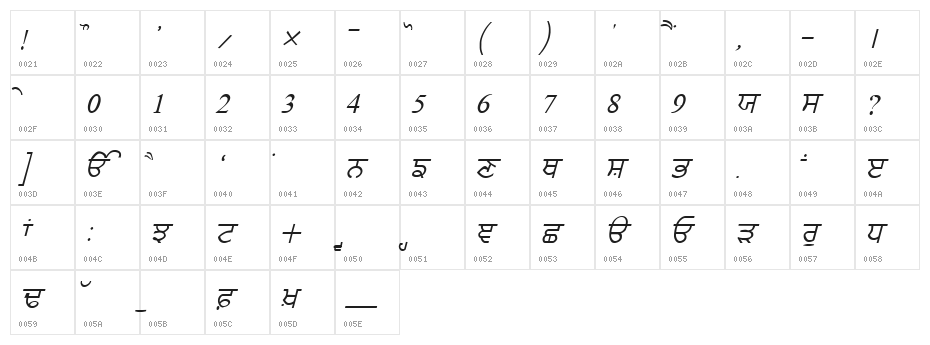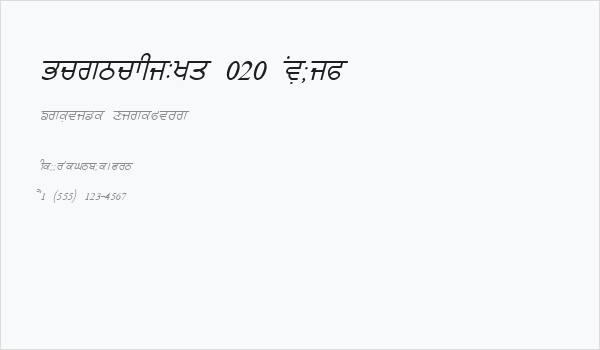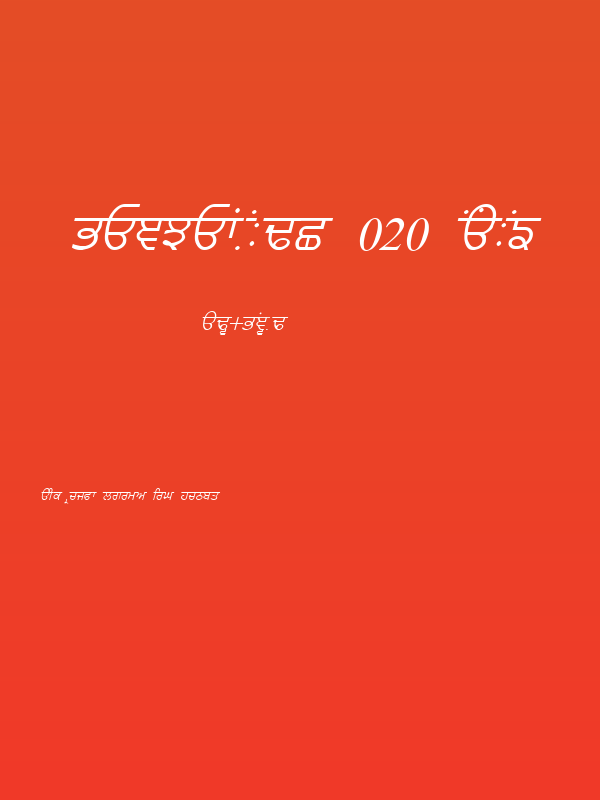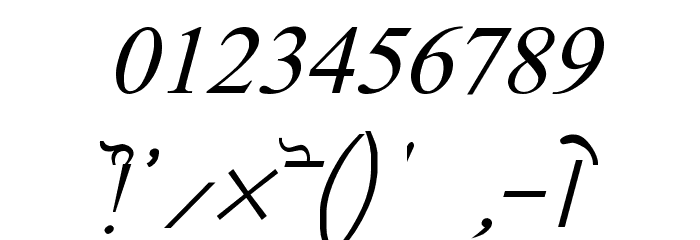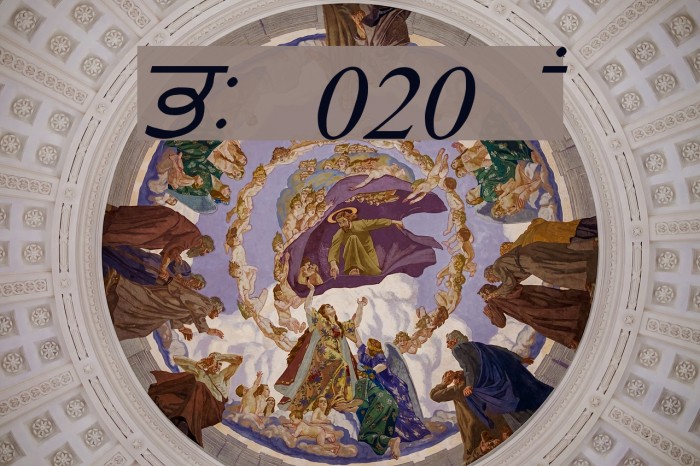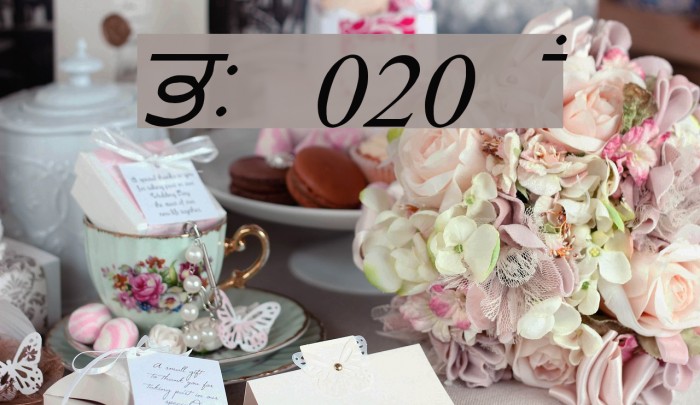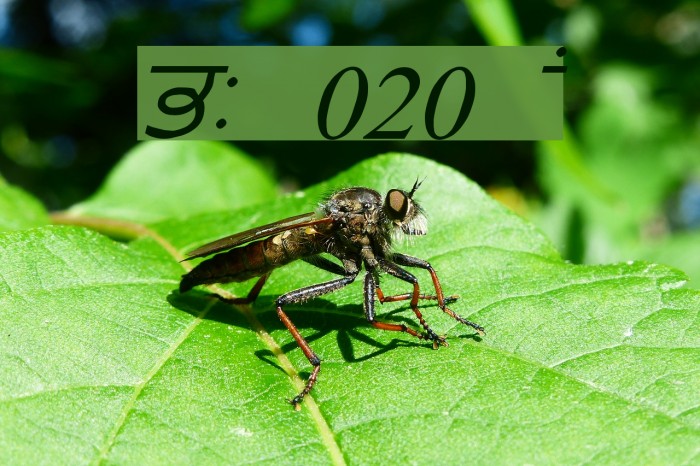
GurmukhiLys 020 Italic Font
GurmukhiLys 020 Italic Description
This font features the Gurmukhi script with an elegant italic style, characterized by smooth curves and a slight slant that adds a dynamic flow to the text. The characters are well-defined, maintaining clarity and readability while exhibiting a graceful appearance. The numerals are consistent with the overall style, complementing the script with their rounded forms. Special characters are included, providing versatility for various uses. The font's design is both traditional and modern, making it suitable for a range of applications.